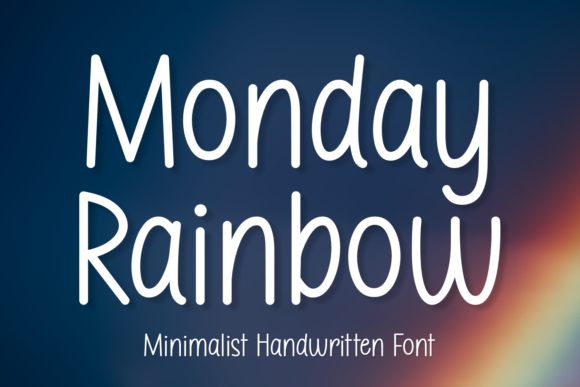
Unleash the magic of self-expression with the enchanting Monday Rainbow font, a whimsical creation by the talented KristoperRansz. This captivating handwritten masterpiece is a kaleidoscope of creativity, blending the coolness of casual style with the adaptability of a true chameleon. Monday Rainbow dances across your designs with effortless grace, seamlessly harmonizing with a myriad of projects, breathing life into your words and igniting your imagination.
Adorned with a rainbow of hues, Monday Rainbow dances before your eyes like a mischievous sprite, captivating hearts and minds with its playful spirit. Its flowing strokes evoke the carefree days of childhood, where dreams took flight and imagination knew no bounds. With Monday Rainbow as your creative companion, you can paint the world with your stories, transforming the ordinary into the extraordinary.
Monday Rainbow's versatility is a testament to its remarkable design. Whether you seek to adorn your tattoos with a touch of whimsy, infuse your branding with a dash of fun, or craft enchanting invitations that ignite the imagination, Monday Rainbow answers your call with unwavering charm. Its adaptability knows no limits, making it the perfect font for everything from playful social media posts to captivating marketing materials.
But Monday Rainbow is more than just a collection of letters and symbols; it's an invitation to embrace your individuality and unleash the boundless creativity within you. With every stroke of this magical font, you leave an indelible mark on the world, transforming the mundane into the magnificent. So, let your imagination soar, seize the colors of the rainbow, and embark on a creative journey like no other with Monday Rainbow by your side.